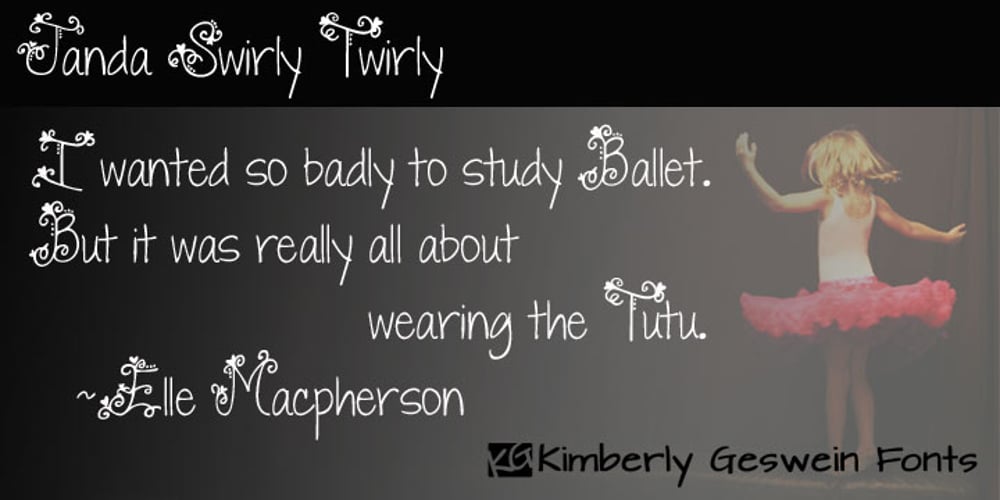
Janda Swirly Twirly Font Family was designed by Kimberly Geswein and published by Kimberly Geswein. Janda Swirly Twirly contains 1 styles and family package options. A more legible version of Janda Love & Rain, these decorative capitals are paired with neat lowercase letters that give you a girly flair with maximum legibility.